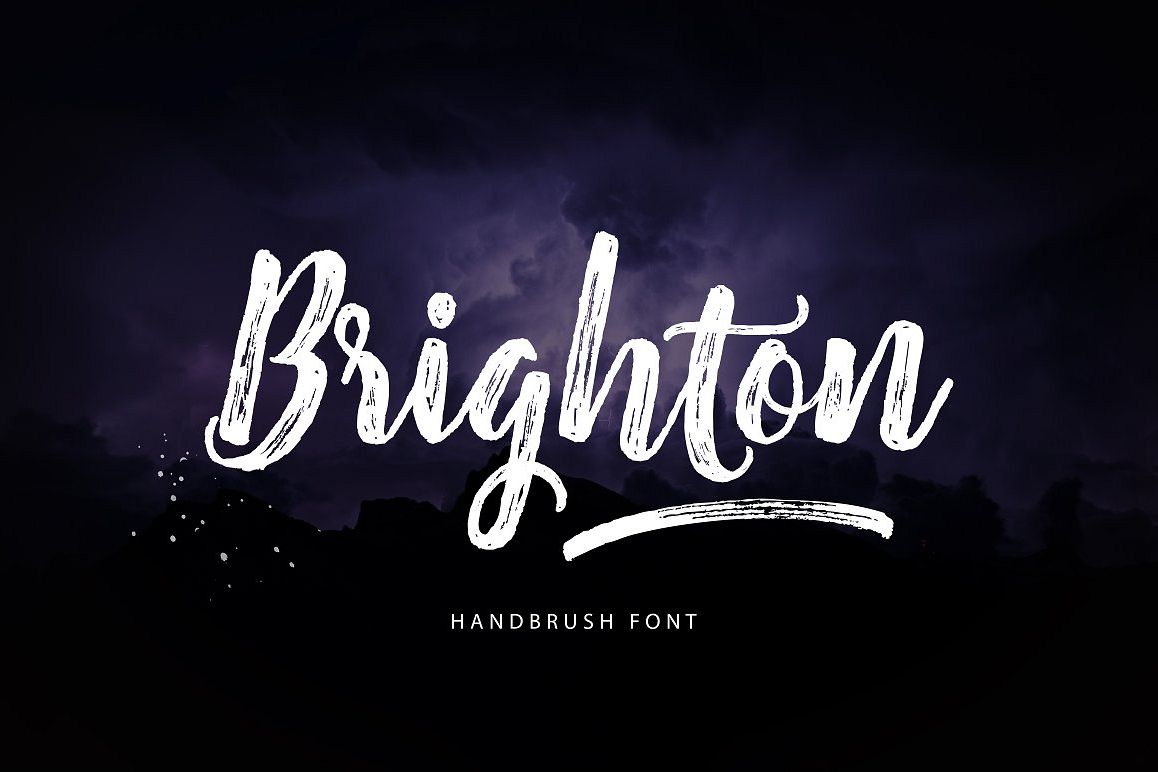
Brighton Script
font with a handbrush style. This font comes to give a natural feel for
the designer in working on various projects, So Perfect and beautiful on
invitation like greeting cards, branding materials, business cards,
quotes, posters, Logos, Greeting Cards, Wedding Stationery, and more!
Brighton Script come with 260 glyphs. The
alternative characters were divided into Several Open Type features such
as Swash, Stylistic Sets, Stylistic Alternates, Contextual Alternates,
-Initial Alternates
-Contextual Alternates
-Standard ligatures
-Unique ligatures
-Stylistic Alternates
-Stylistic sets
-Basic Latin A-Z and a-z
-Numbers
-International Symbols Support